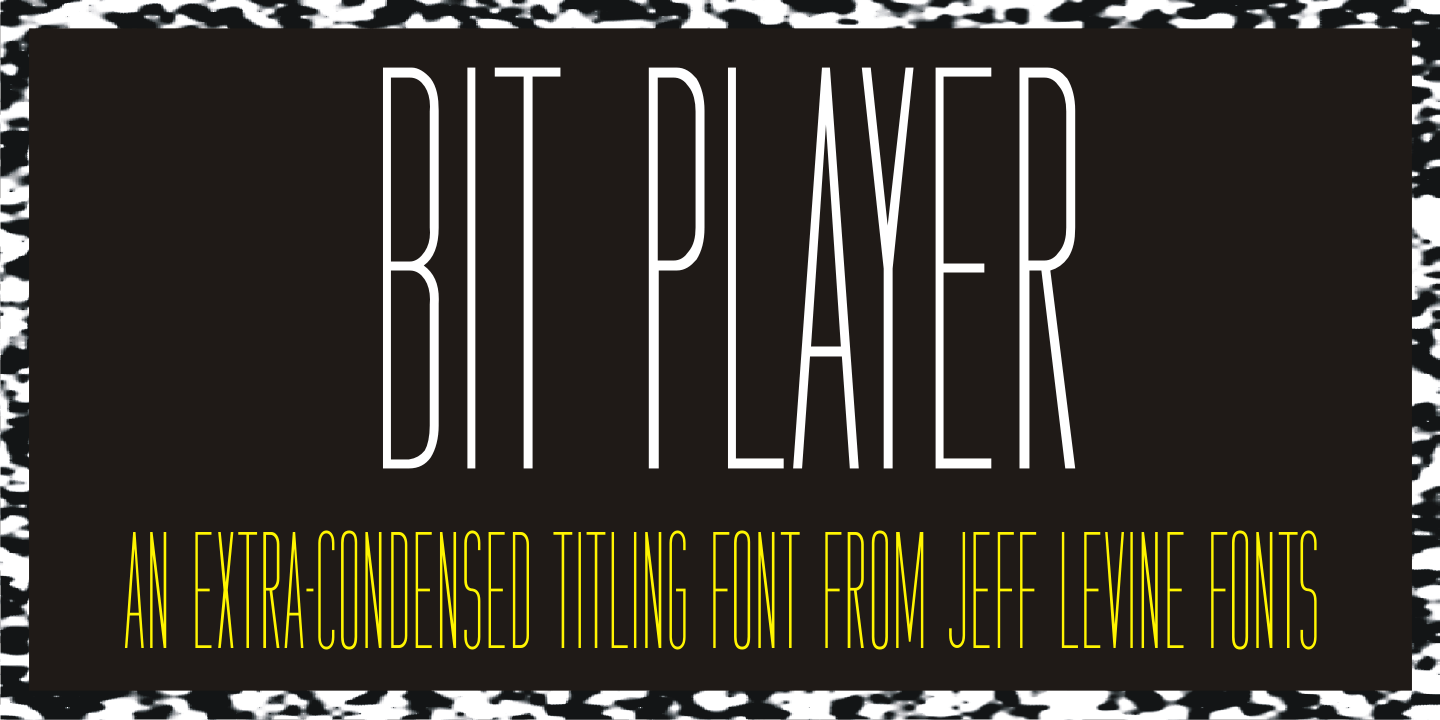
Bit Player
Bit Player JNL is the extra-condensed companion font to Cast and Crew JNL, and features an additional oblique version.
Useful wherever a large block of copy text needs to fit into a constrained space, Bit Player JNL can be applied to movie title credits, disclaimers, warranty information, end user license agreements and similar projects.
Bit Player JNL Regular by Jeff Levine Fonts